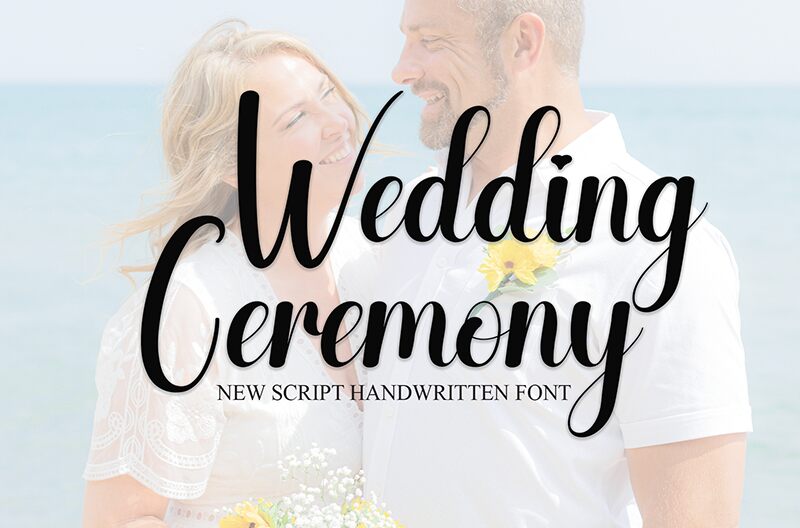
Wedding Ceremony
Wedding Ceremony font by Andi Moz is an elegant, flowing handwritten font with sophisticated edges and curves. The romantic type features, a graceful look reminiscent of classic script typefaces. With a lot of luxurious style, it can be used for short yet standout words.
More use cases for this font include: invitations, magazine covers and titles, greeting cards, social media graphics, quotes typography posters, website landing pages titles, blog banners that require decorated headings etc. Not so much suitable for writing long body texts with paragraphs but rather - celebrate uniqueness by inserting short personalized messages here and there throughout the page structures.